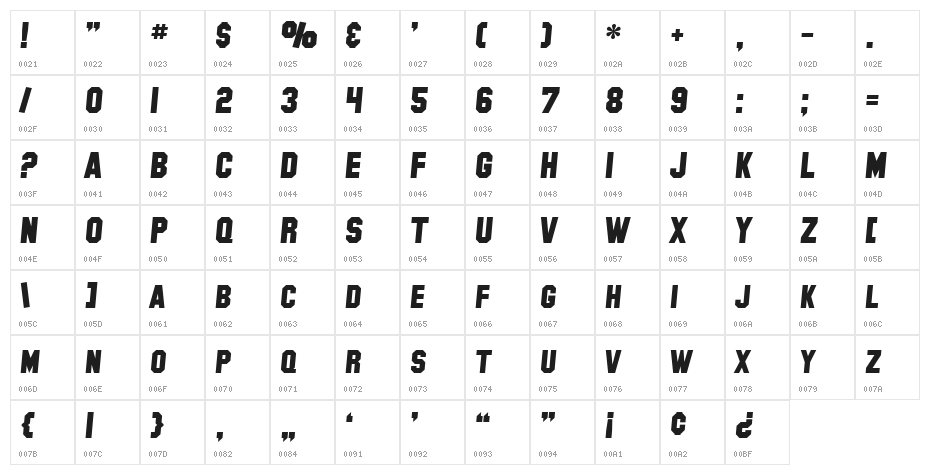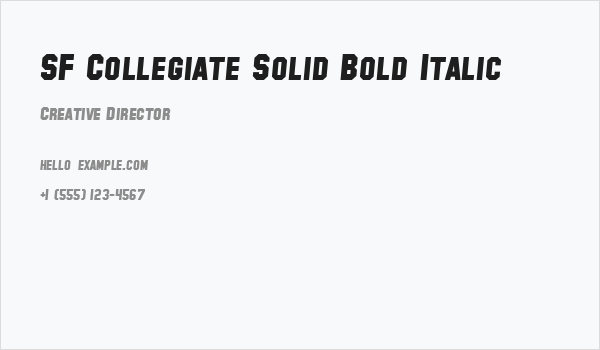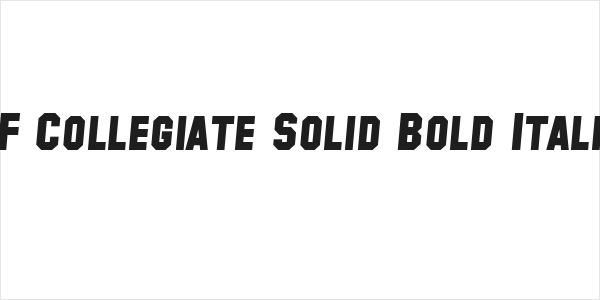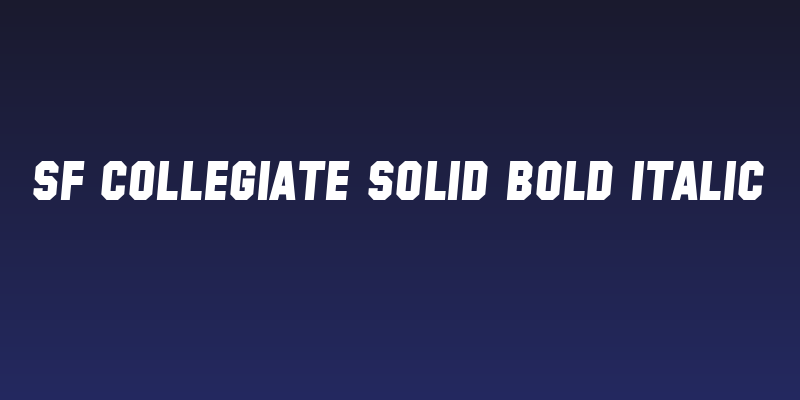
SF Collegiate Solid Bold Italic Font
SF Collegiate Solid Bold Italic Description
This font features a bold and italicized style with a strong, collegiate feel. The characters are solid and robust, designed with a slight slant that adds dynamism and energy. The uppercase letters are particularly striking, with angular edges and a blocky appearance that conveys strength and authority. The numbers and special characters maintain this bold aesthetic, ensuring consistency across all glyphs. This font is ideal for projects that require a commanding presence and a touch of vintage athleticism.
| Proposed Projects | Perfect for sports team branding, university merchandise, event posters, and retro-themed designs. |